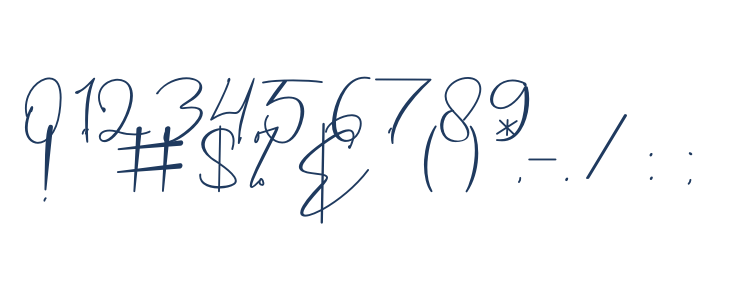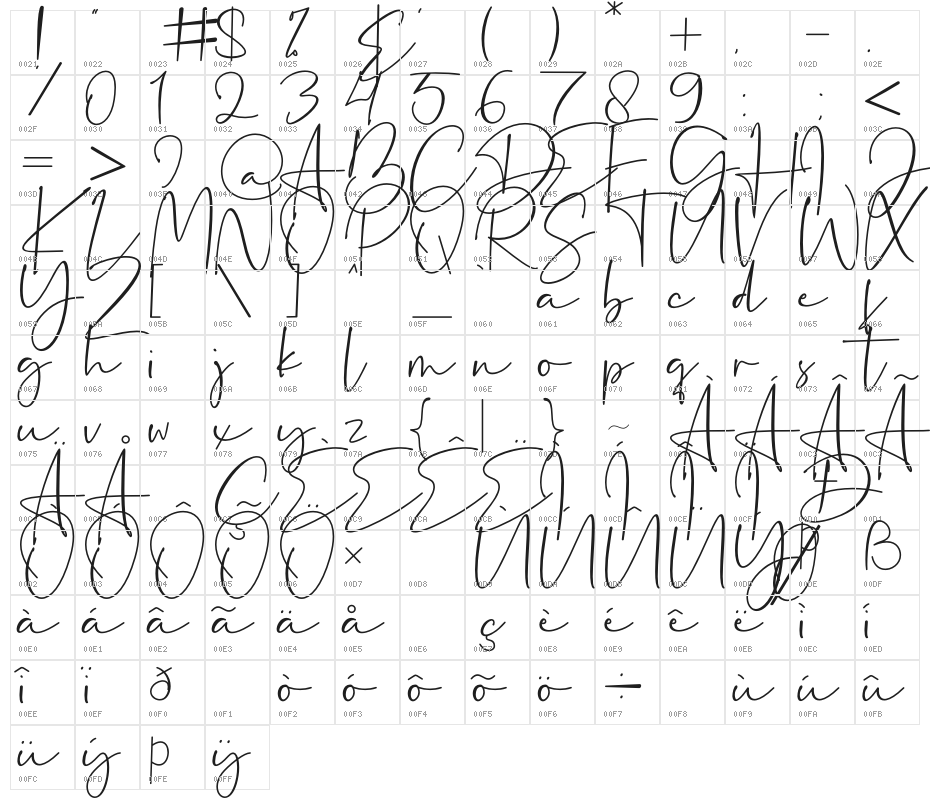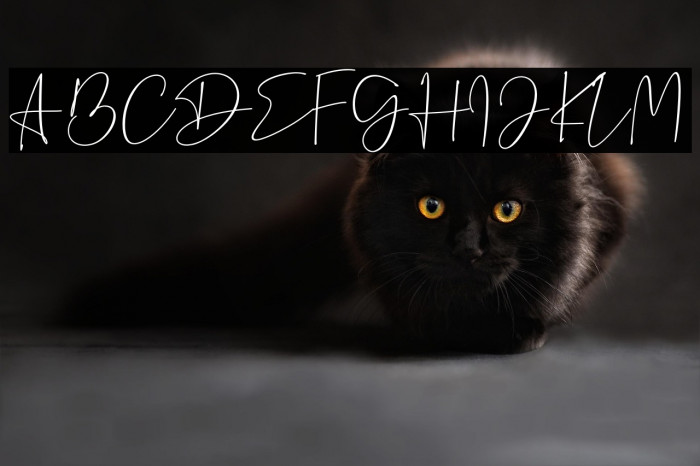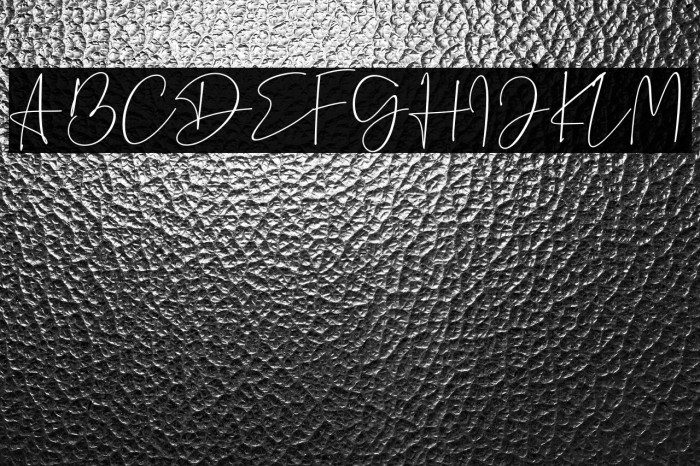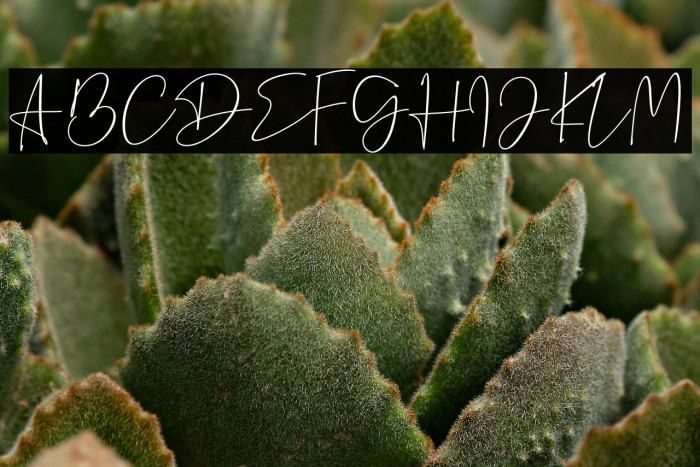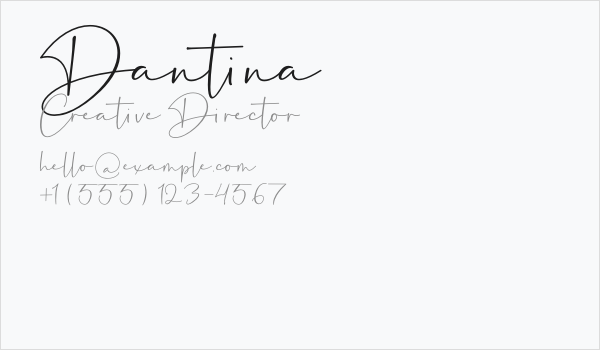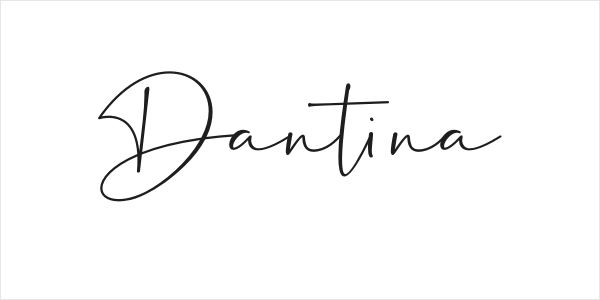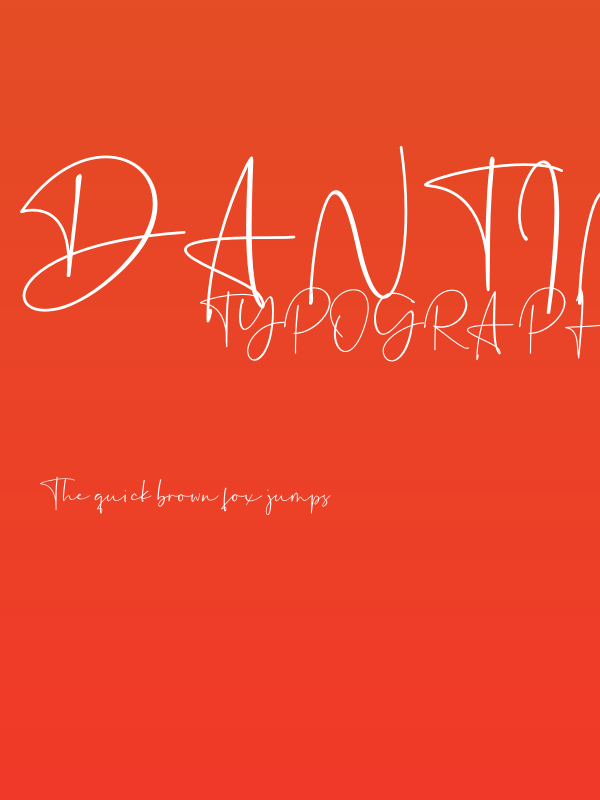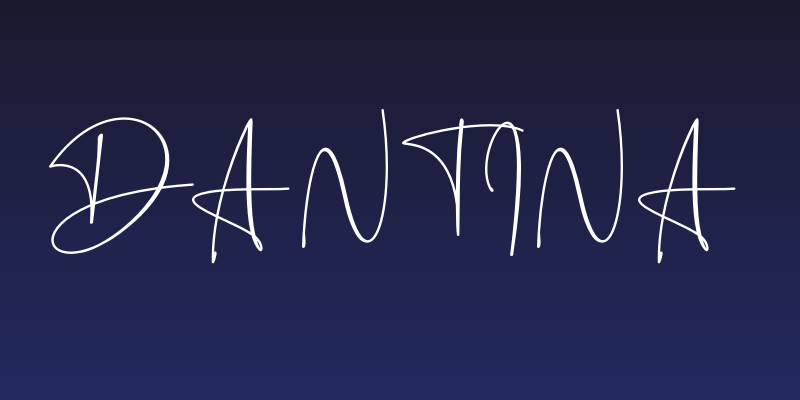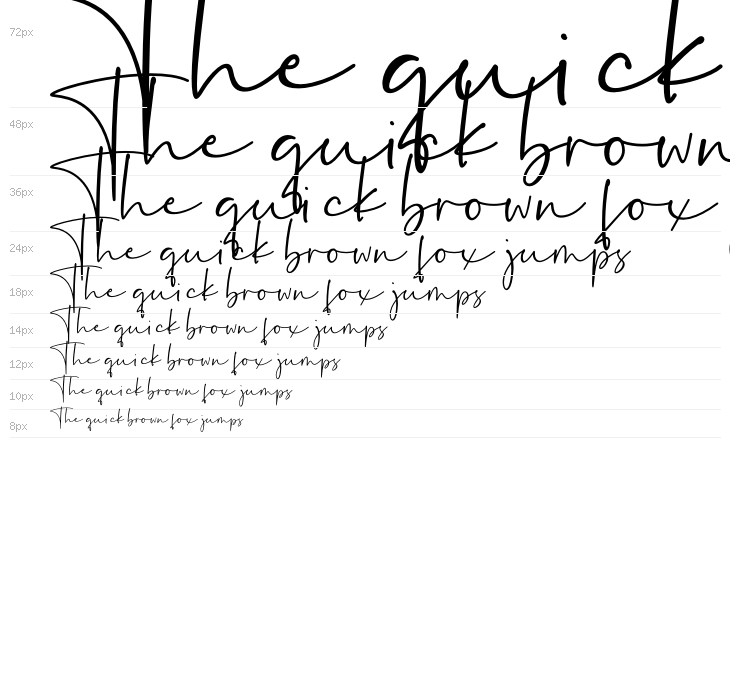
Dantina Font
Dantina Description
This font features a lively and flowing script style, characterized by its handwritten appearance. The uppercase letters are tall and slender, with a slight slant that adds a dynamic feel. The lowercase letters are more fluid, with loops and curves that enhance its casual elegance. The numbers maintain the same playful style, ensuring consistency across all characters. Special characters are integrated seamlessly, maintaining the overall aesthetic. This font is perfect for projects that require a personal touch, such as invitations, greeting cards, or branding materials.
| Overall Style | Casual, Elegant |
| Use Case | Headlines, Invitations, Personal Branding |
| Proposed Projects | Ideal for invitations, greeting cards, personal branding, and creative projects that require a personal touch. |